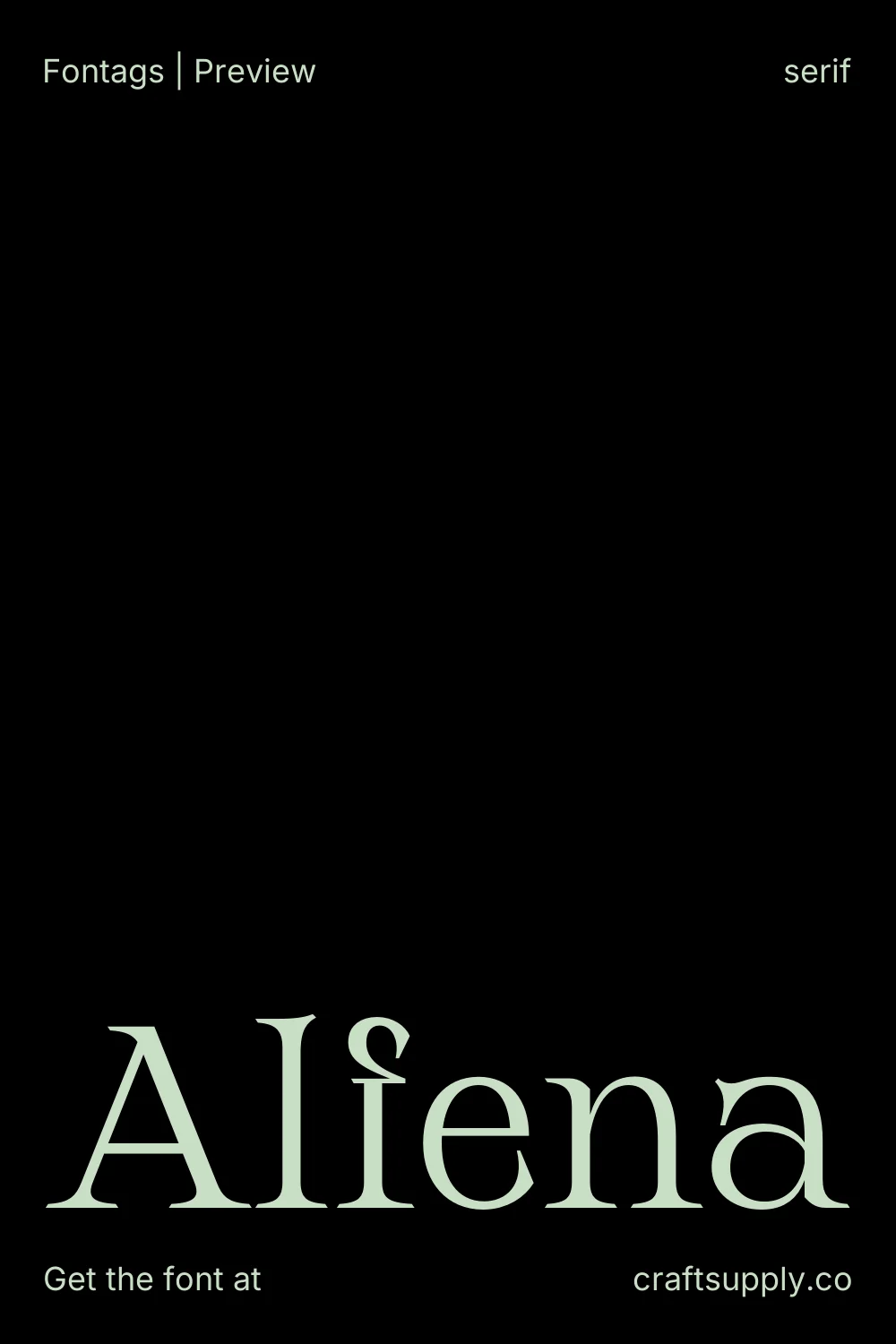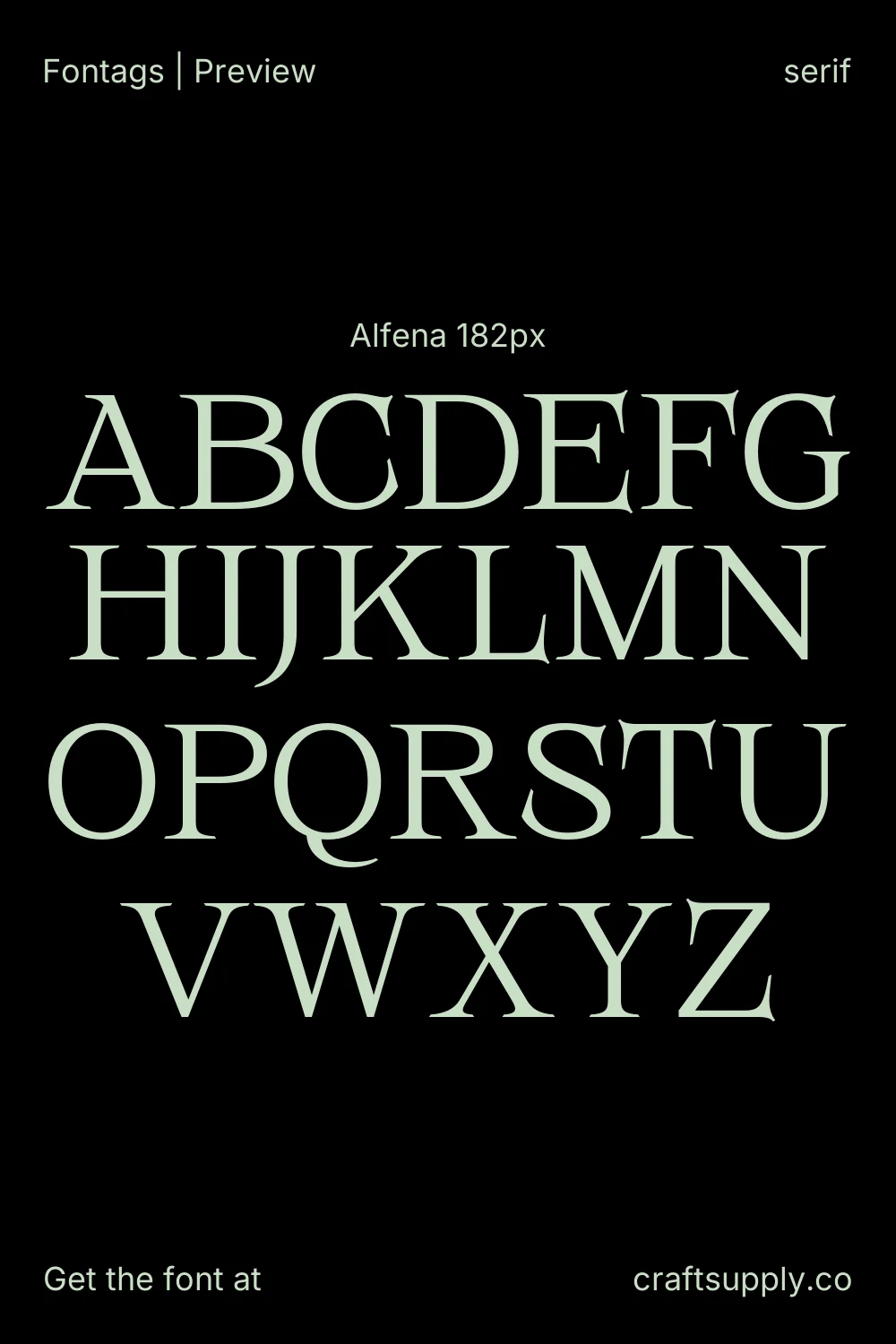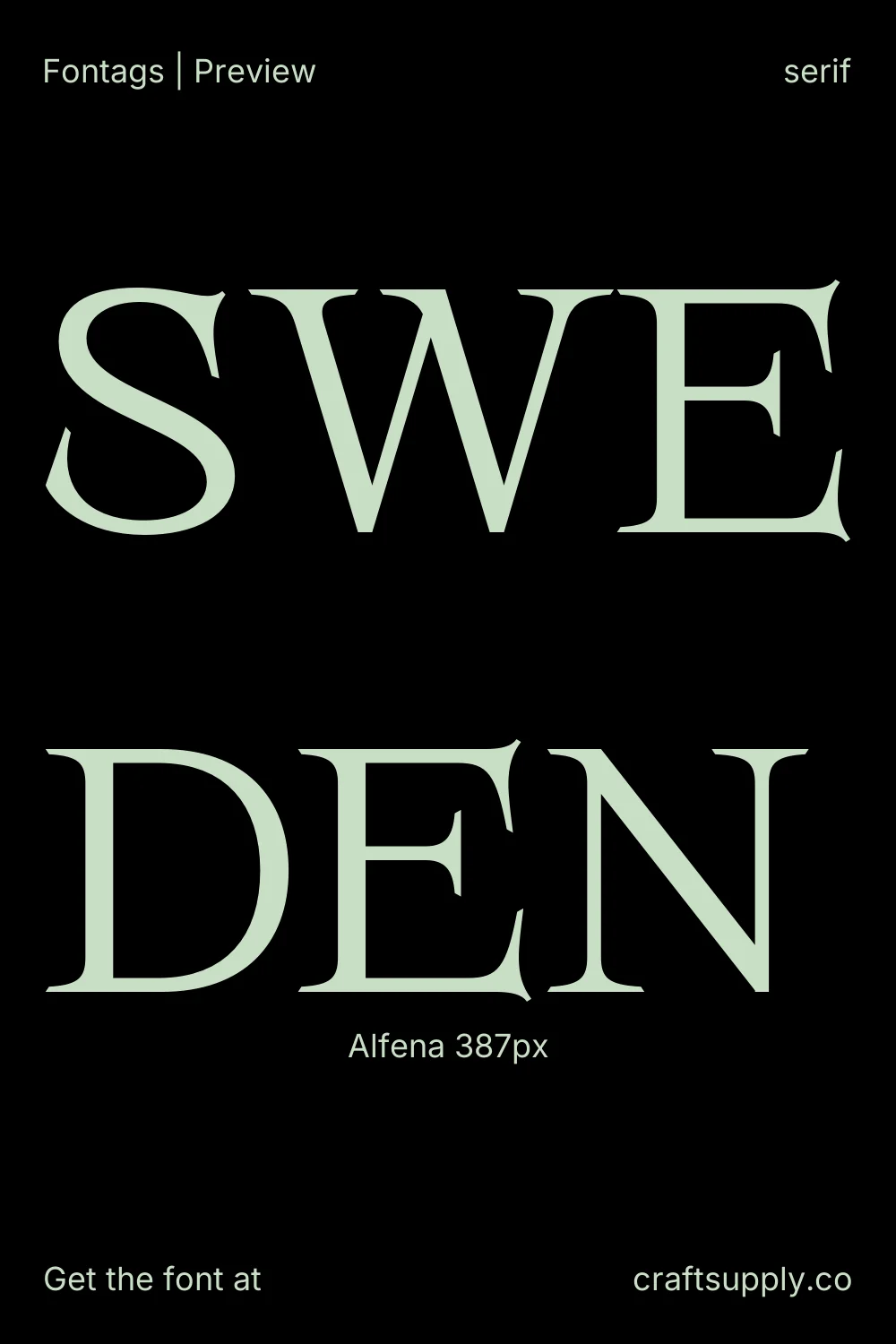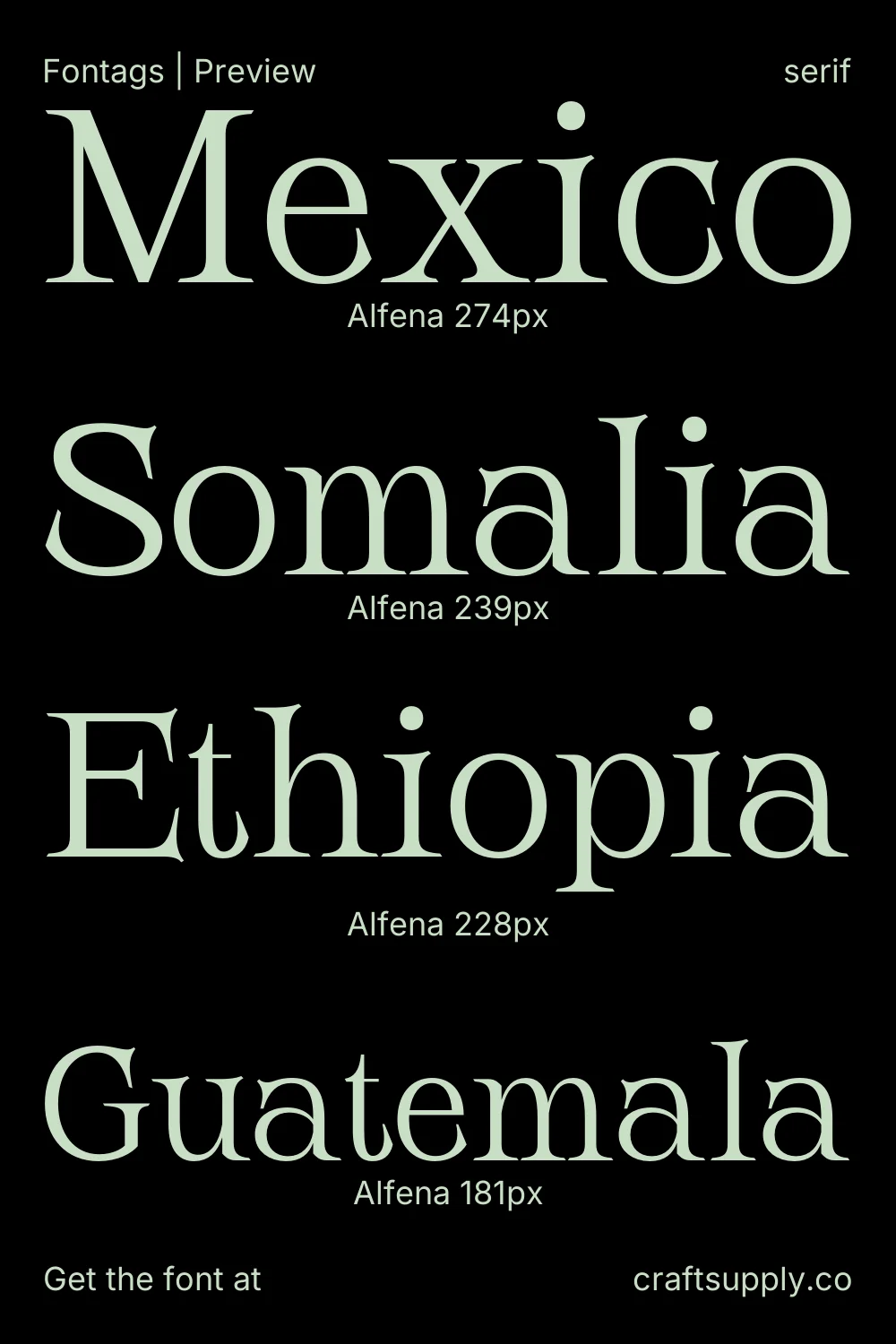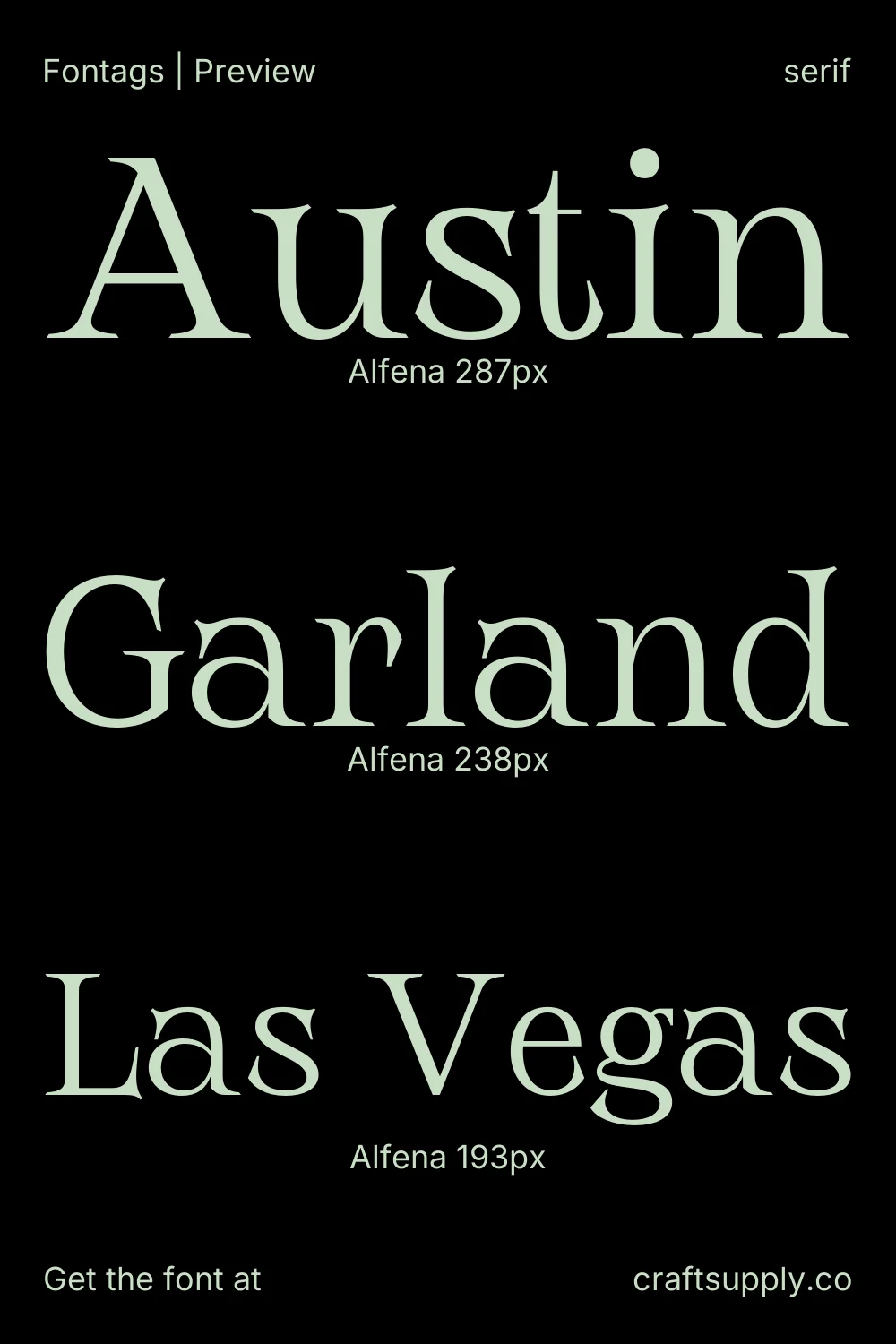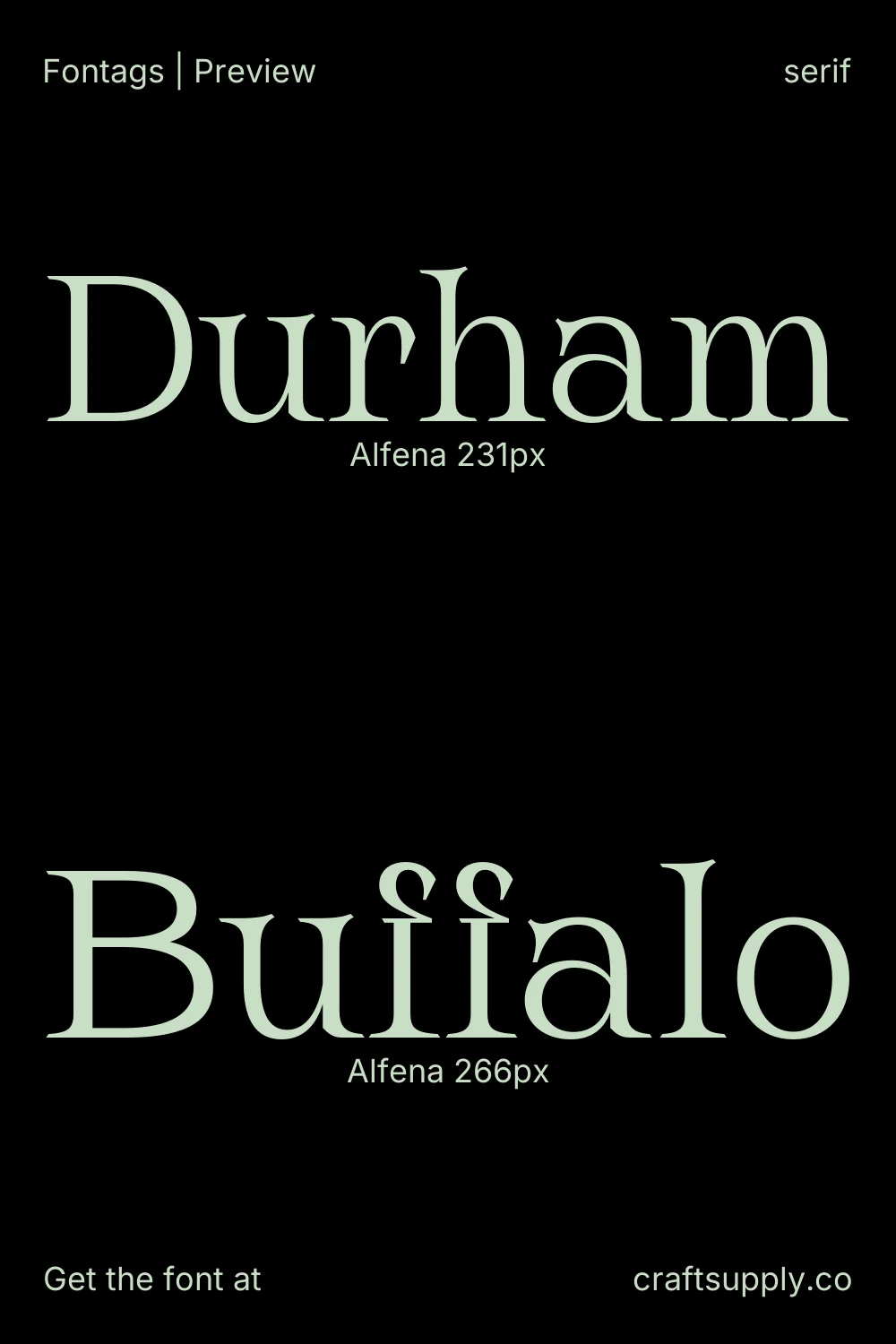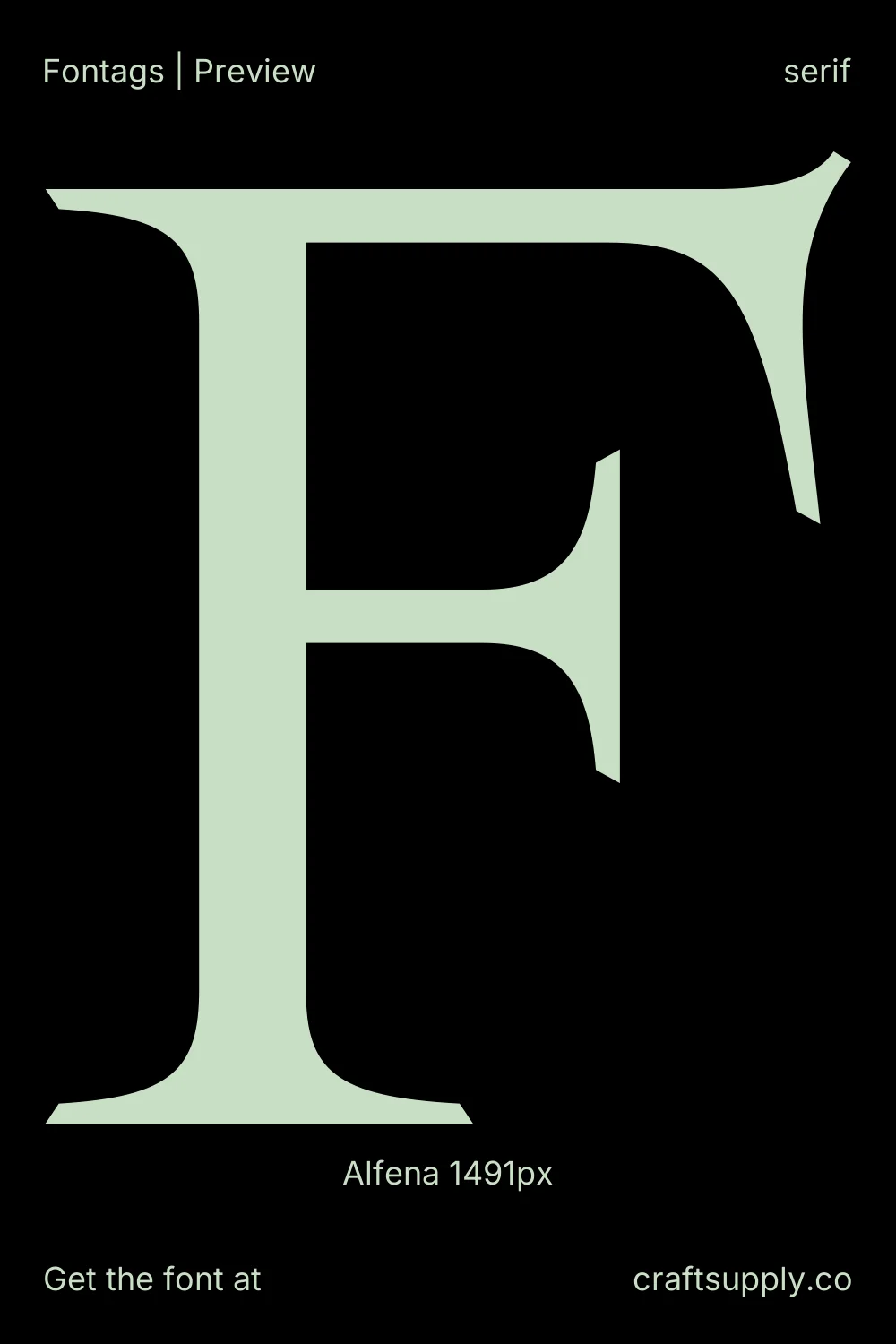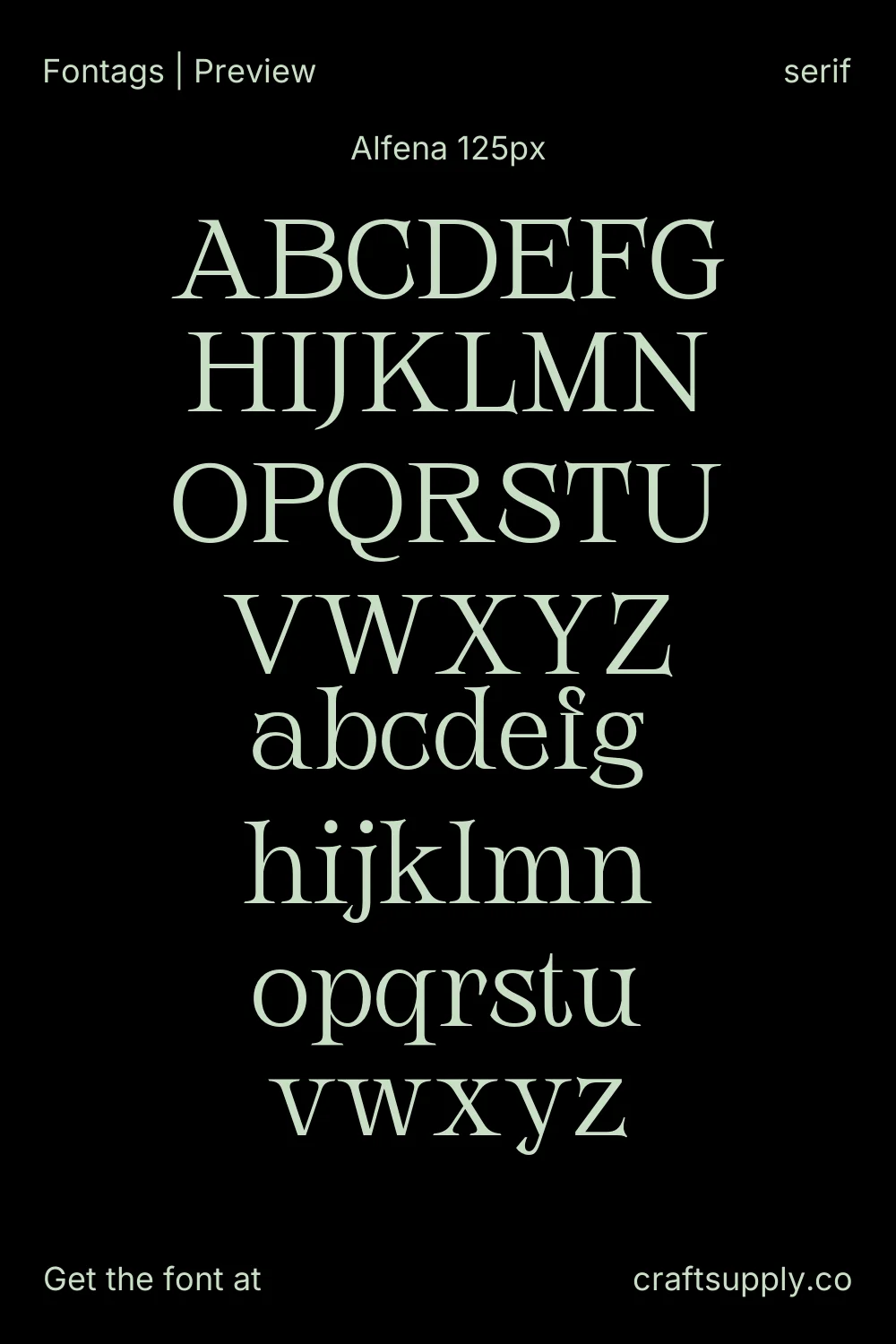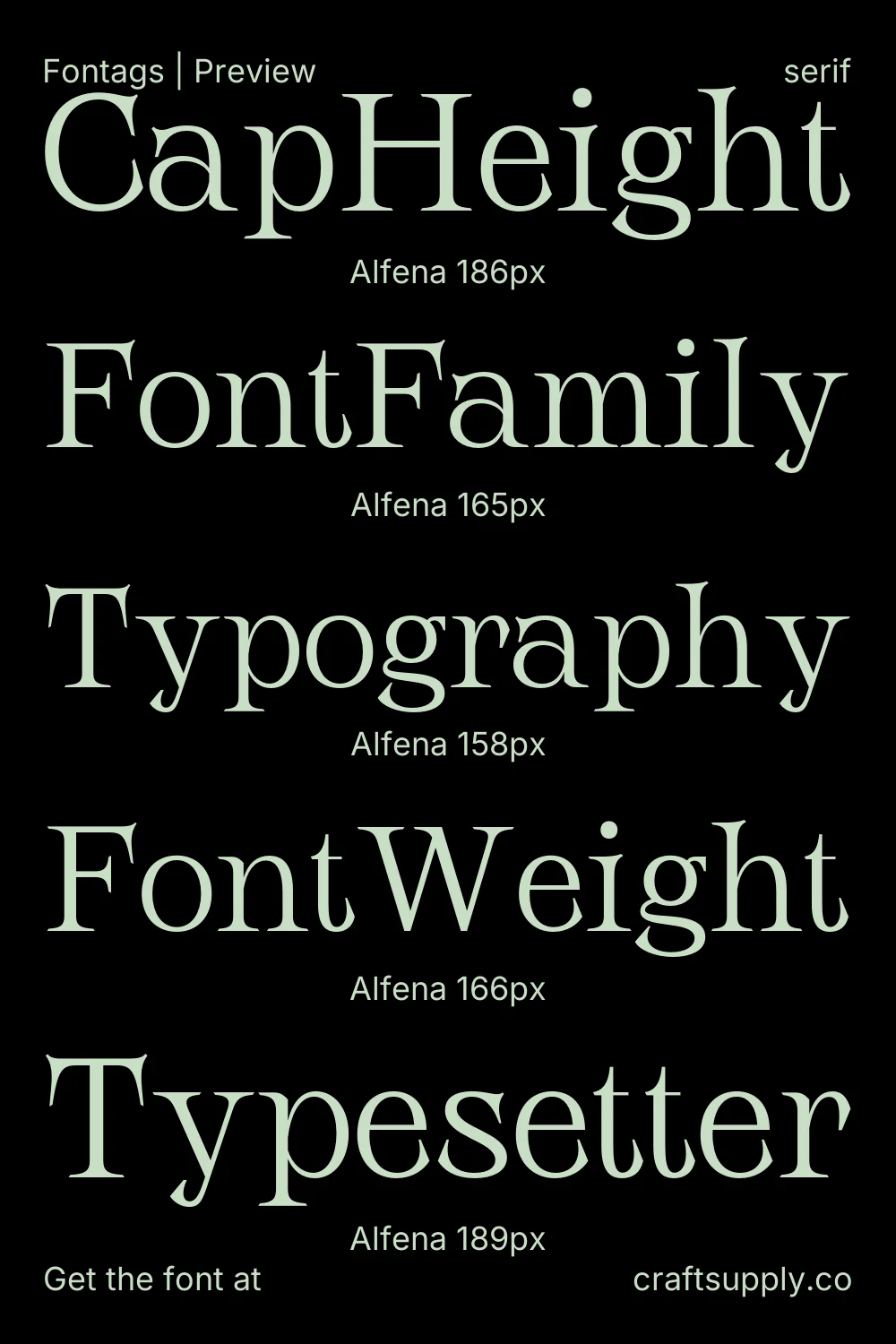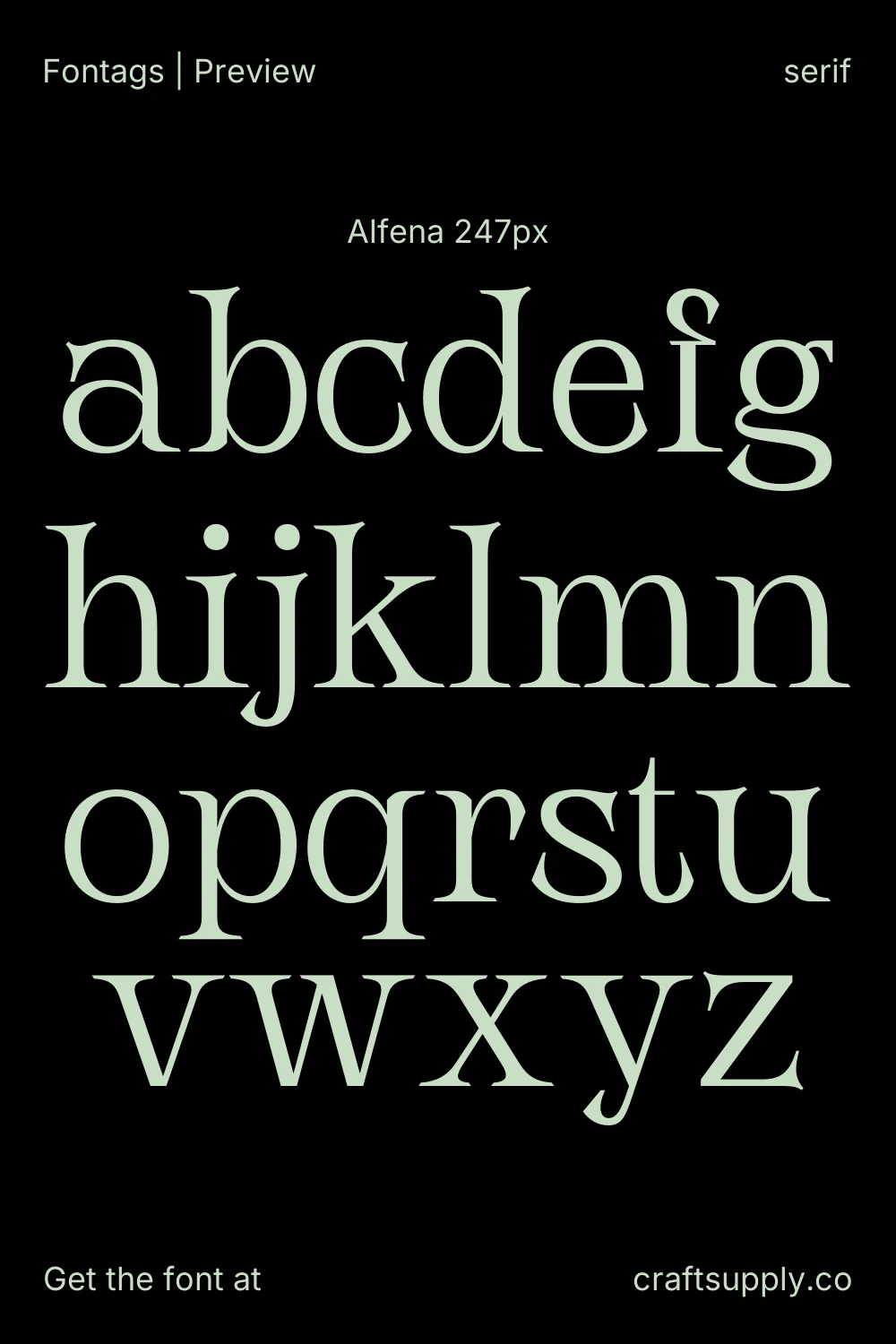
Alfena
Alfena is a charming serif font that blends modern elegance with a playful, cute personality. Its moderate contrast and refined curves ensure readability while adding a distinctive character. Ideal for branding, editorial projects, and any design seeking a sophisticated yet endearing typographic voice.